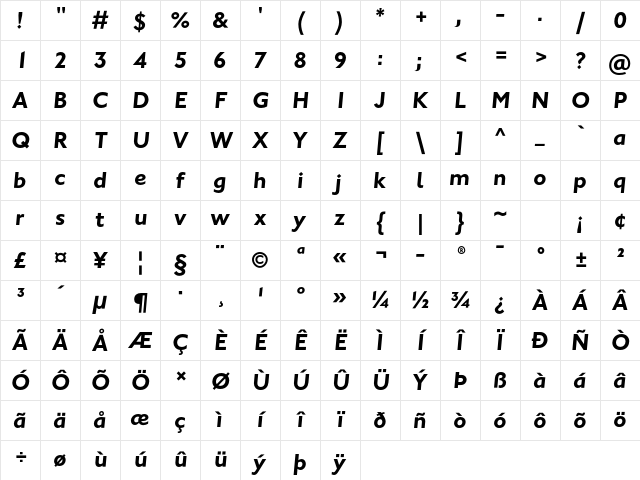
Johnston ITC Std Bold Italic
Designer: Dave Farey and Richard Dawson
Design Context for Johnston ITC Std
Johnston ITC Std is a composed and adaptable typeface that performs quietly and consistently across a wide range of design contexts. The slanted form adds forward momentum and visual energy. Its bold stroke weight gives it real presence on the page.